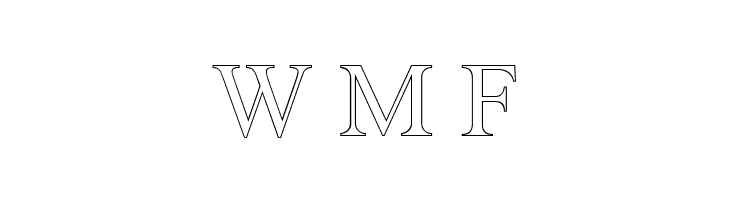
Newborough Font
A classic, calligraphic serif font with decorative flourishes.
Wrexham Script Font
An elegant script font with smooth, flowing curves and connected letterforms.
Milford Black Font
A bold, geometric font with strong, uniform strokes for impactful design.
Milford Condensed Bold Font
A bold, condensed font ideal for impactful headlines and titles.
Milford Hollow Font
A modern, hollow outlined typeface with a clean and structured appearance.
Swansea Bold Font
A bold, modern font with clean lines and excellent readability.
Milford Bold Font
A bold, modern font with thick strokes and a strong presence.
Arabic Web Font
A modern Arabic script font with elegant curves and balanced strokes.
La Jolla ES Font
An elegant script font with intricate swashes and a classic, sophisticated style.
Milford Condensed Font
A modern, condensed sans-serif font with a clean and professional look.
ThaHuong 1.1 Font
An elegant, slanted script font with flowing cursive letterforms.
ChowMein Font
A bold, Gothic-inspired font with sharp, angular lines and intricate detailing.
Swansea Font
A clean, modern sans-serif font with balanced spacing and consistent stroke width.
Yoxall Bold Font
A bold, modern font with thick strokes and clean lines.
PhuongThao 1.1 Font
A bold, cursive font with a dynamic and flowing handwritten style.
Ambrosia Demo Font
A modern geometric sans-serif font with a clean and balanced design.
Urdu Web Font
A traditional Urdu script with elegant, flowing characters and a classical calligraphic style.
Milford Bold Italic Font
A bold, italicized typeface with a modern, dynamic style.
Newtown Italic Font
A modern, italicized font with a sleek and dynamic style.
Oxford Font
A classic serif font with elegant, well-balanced strokes.